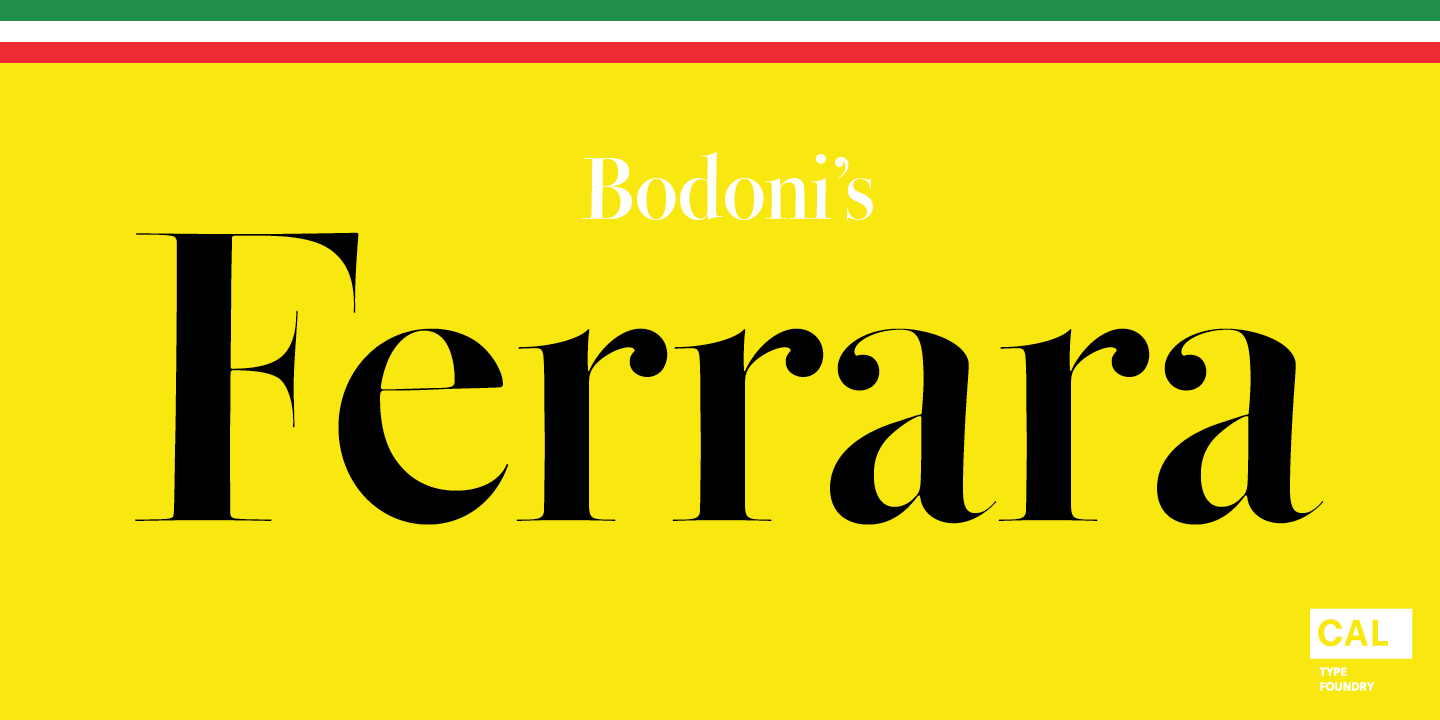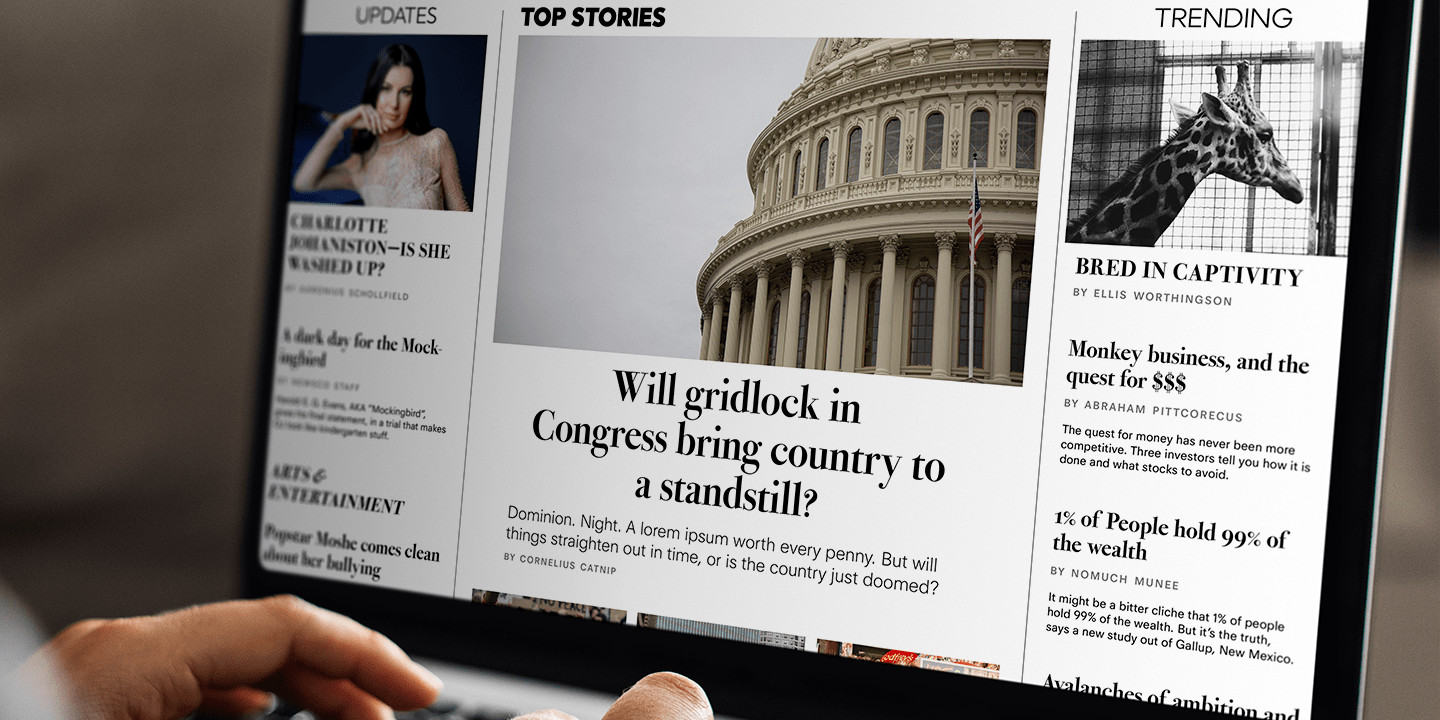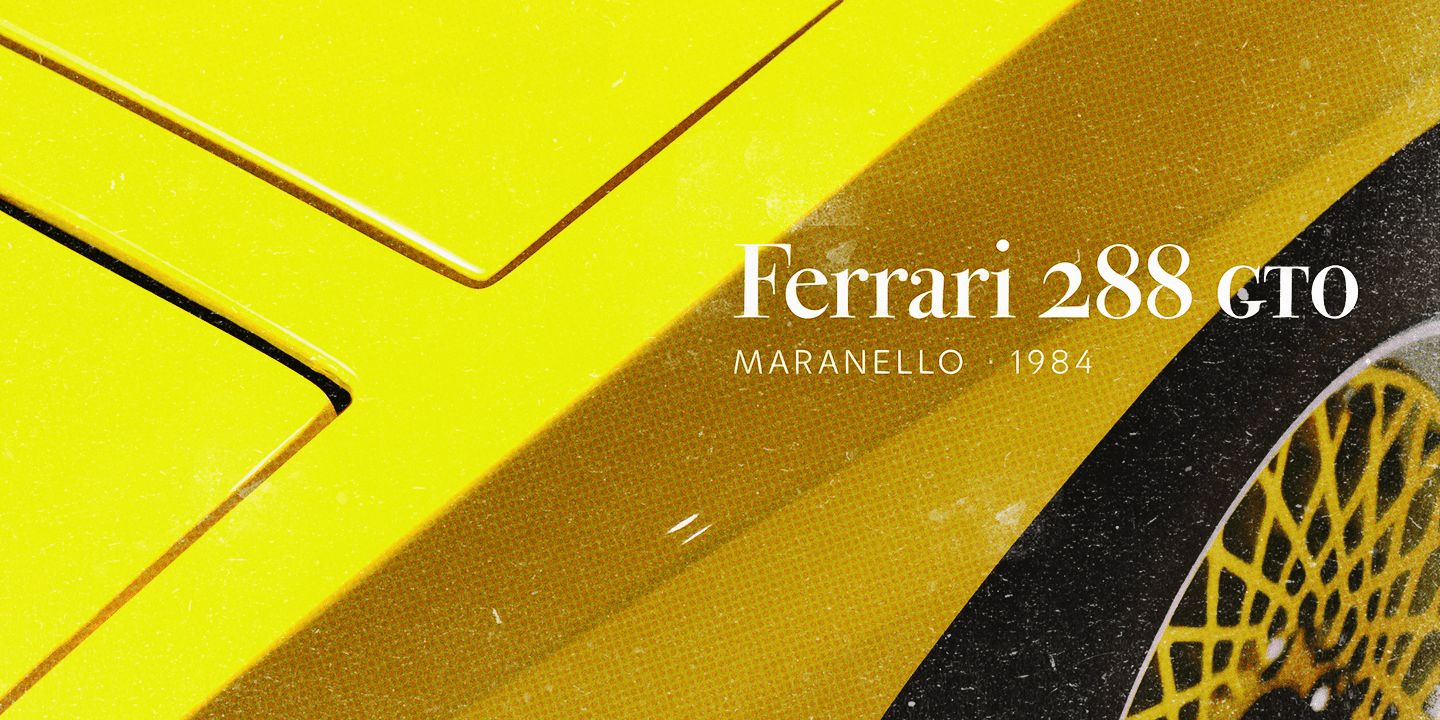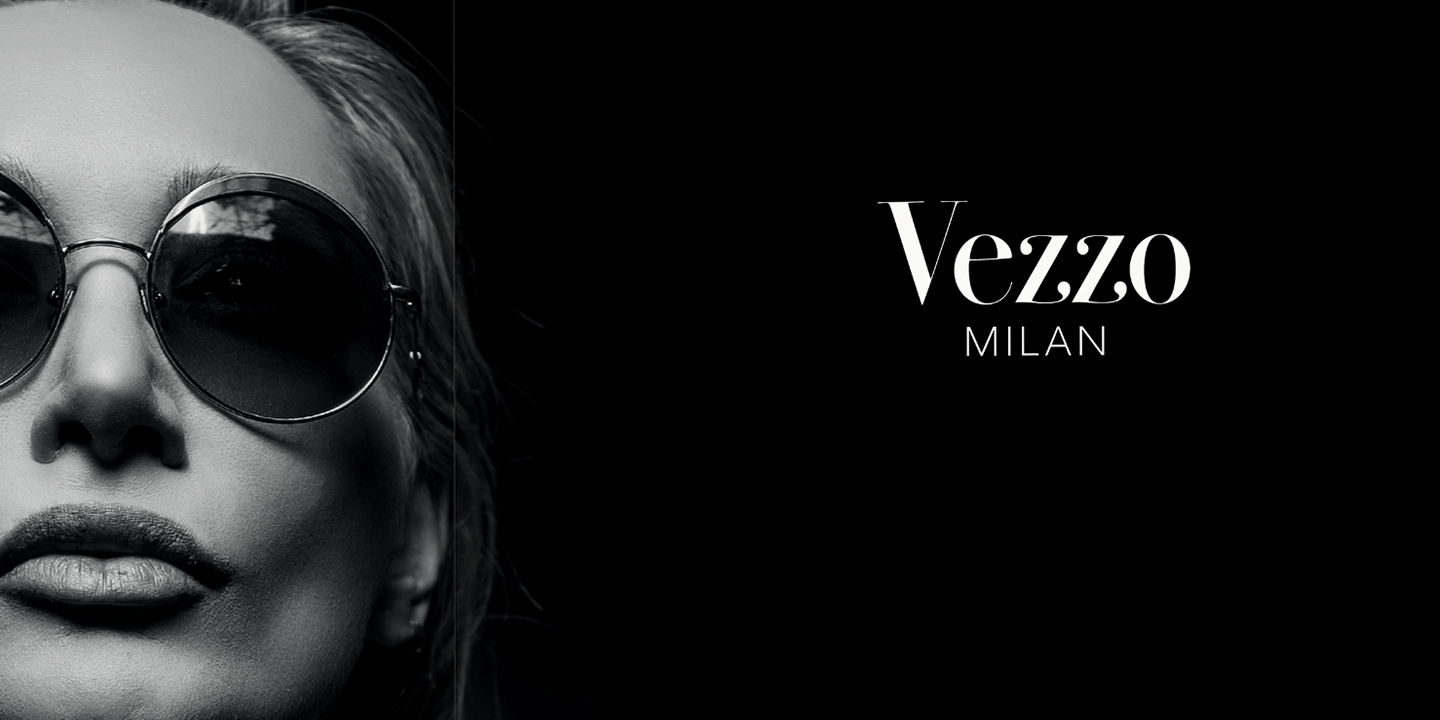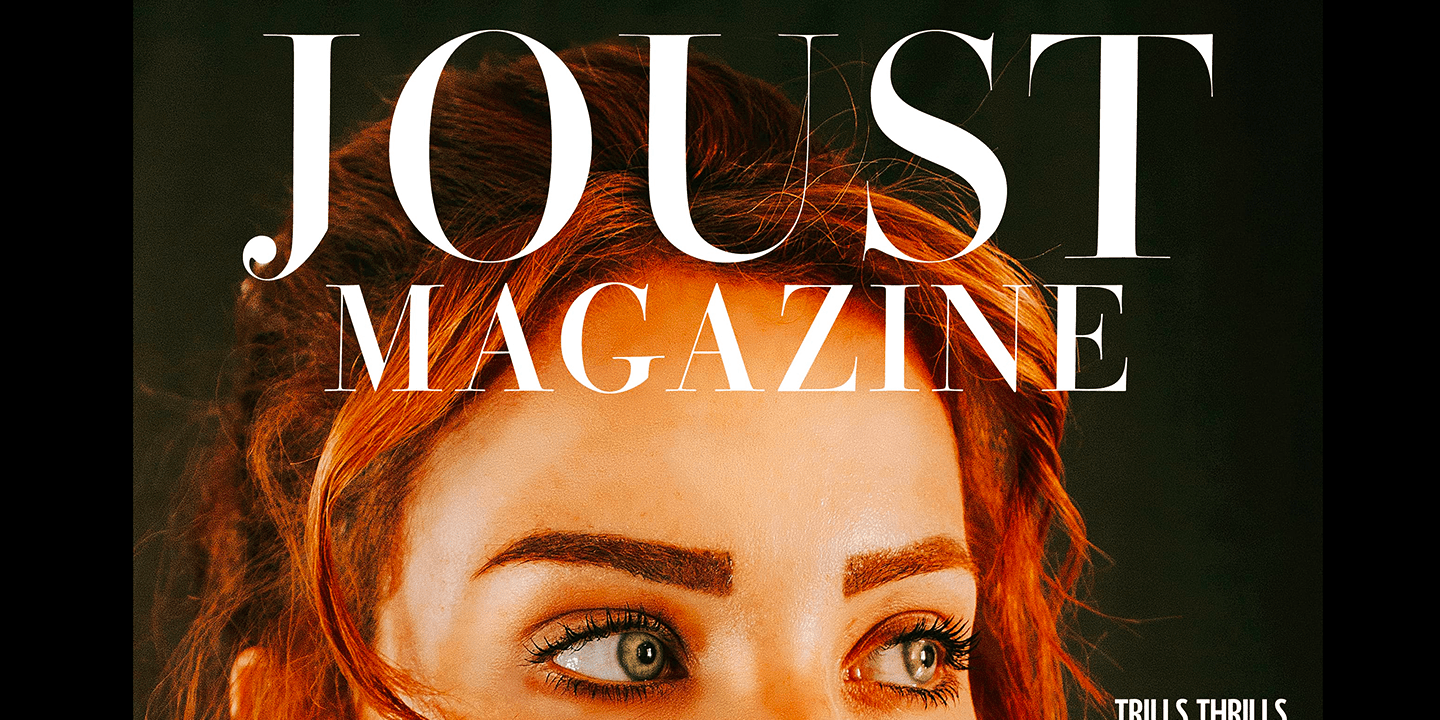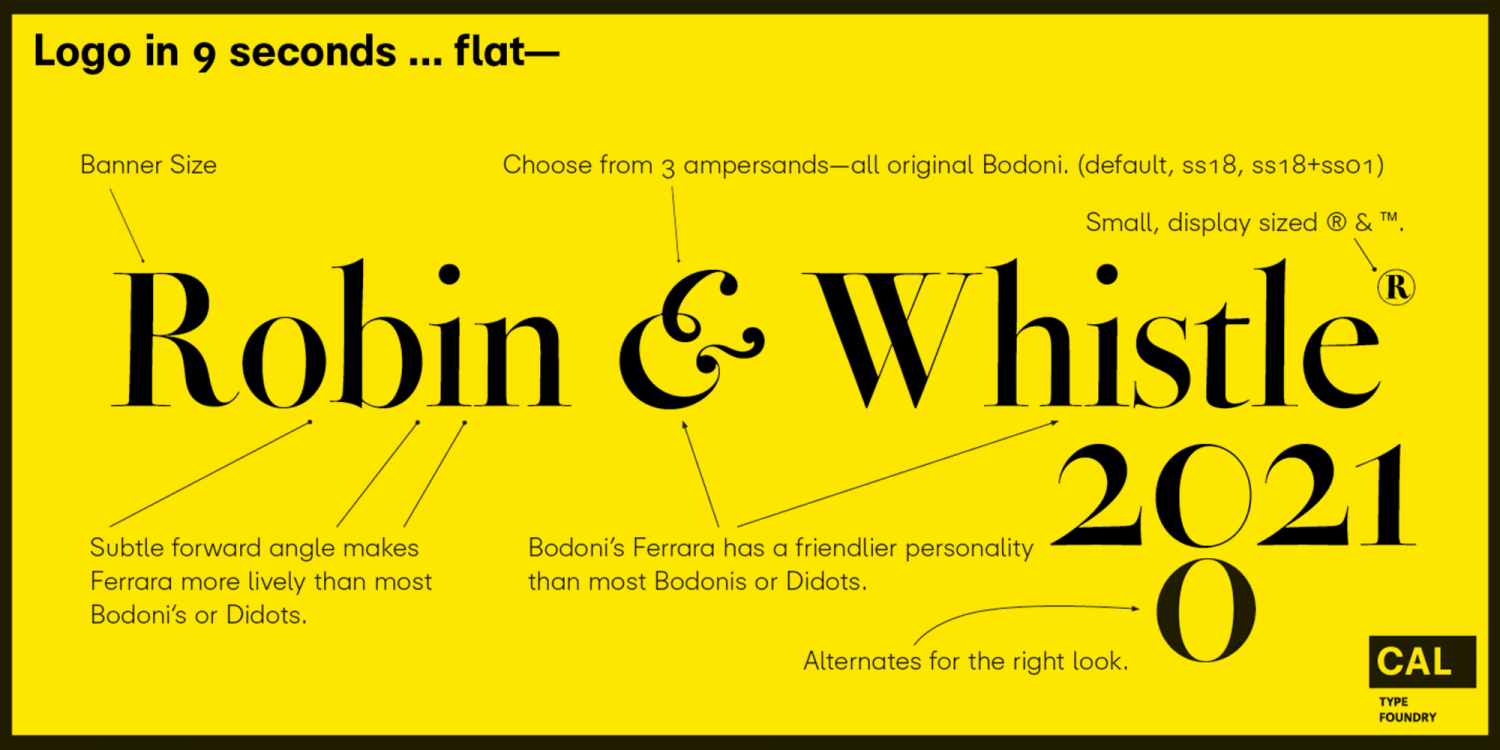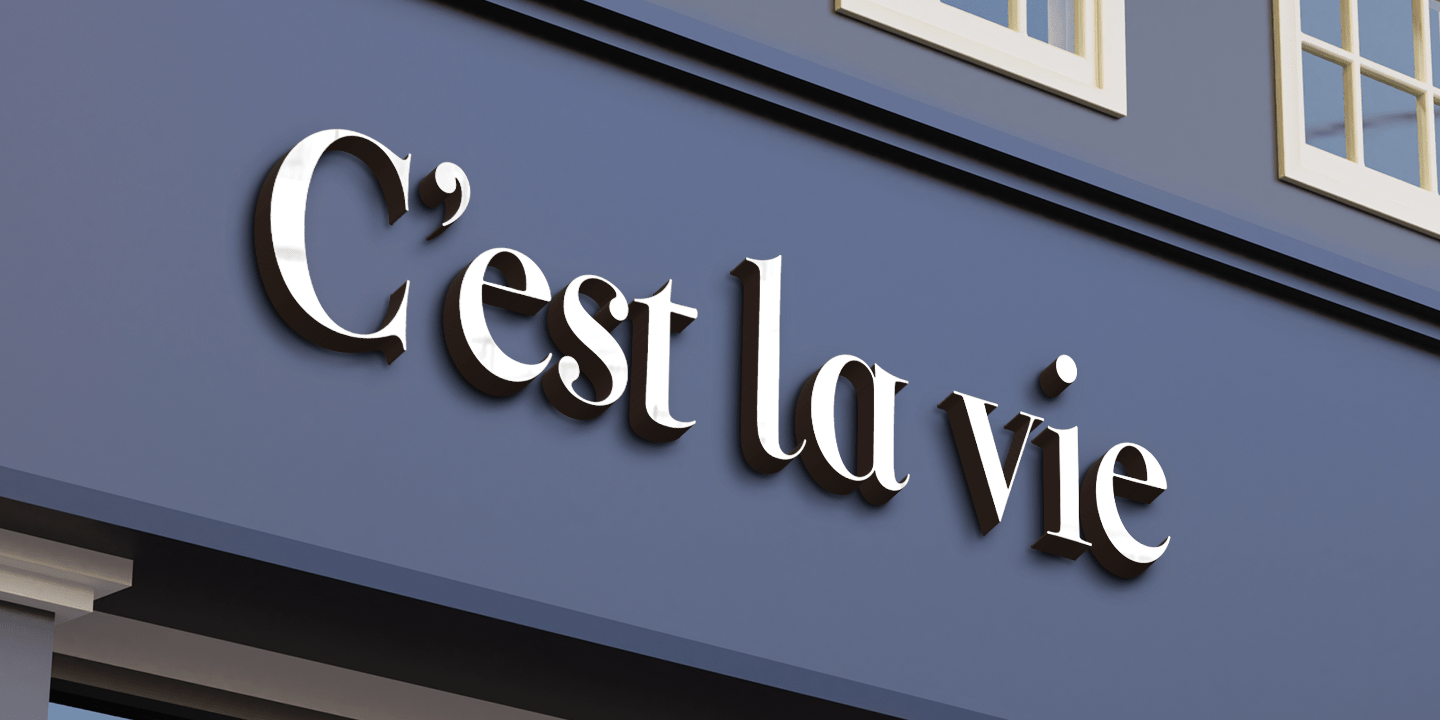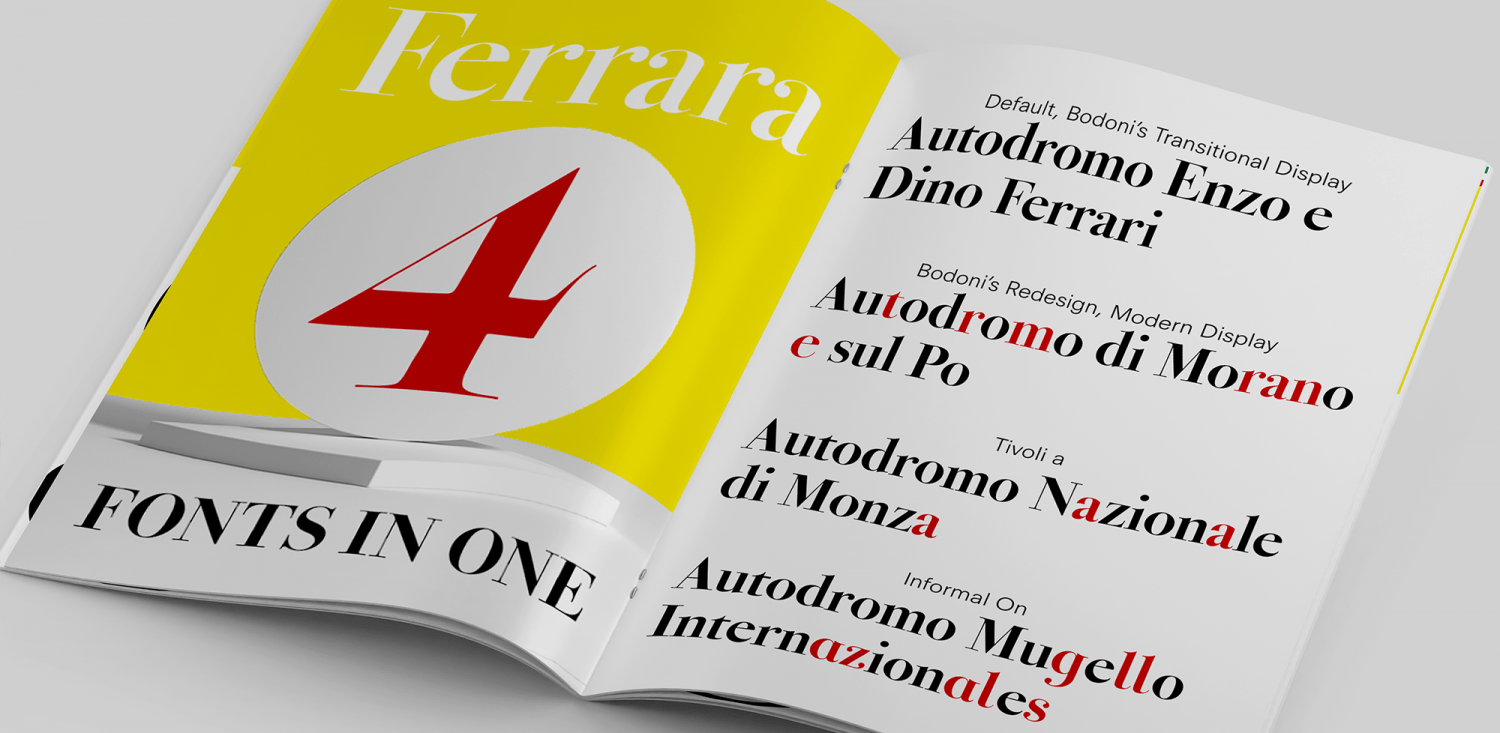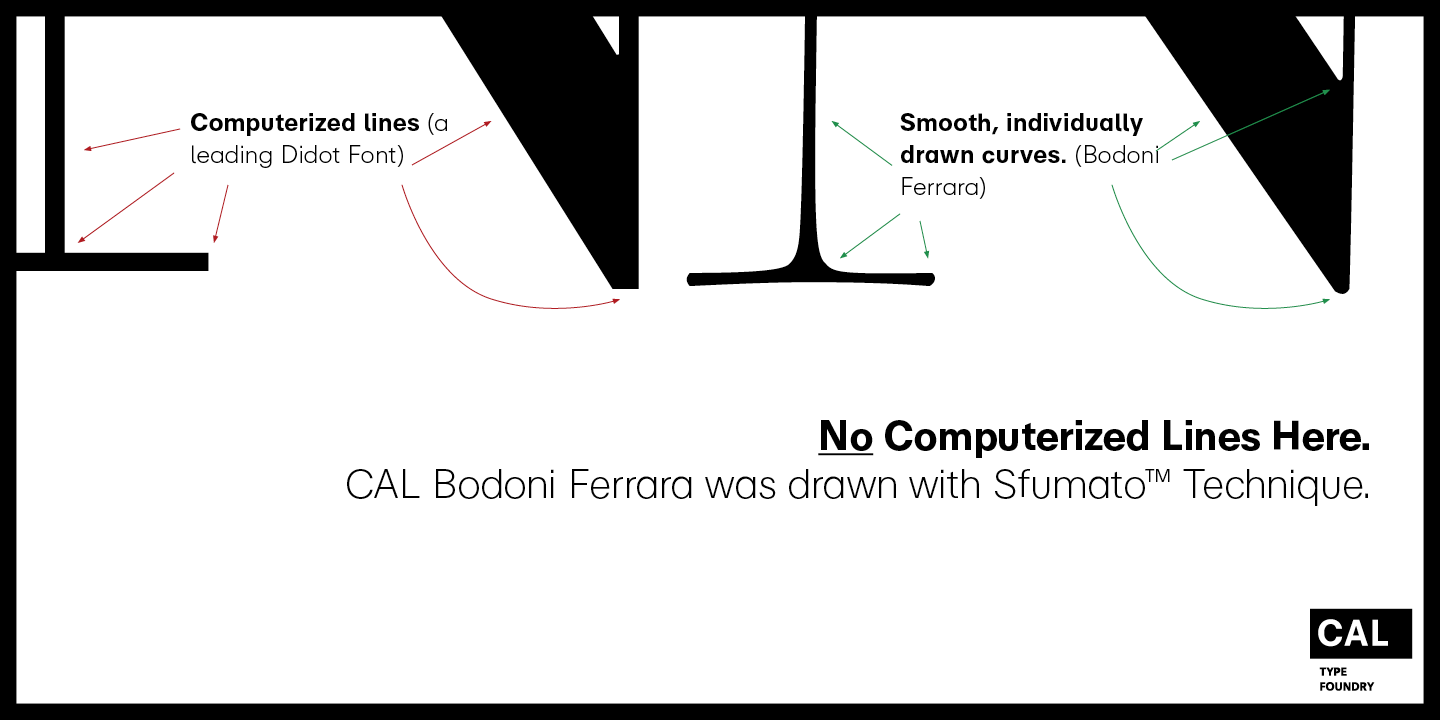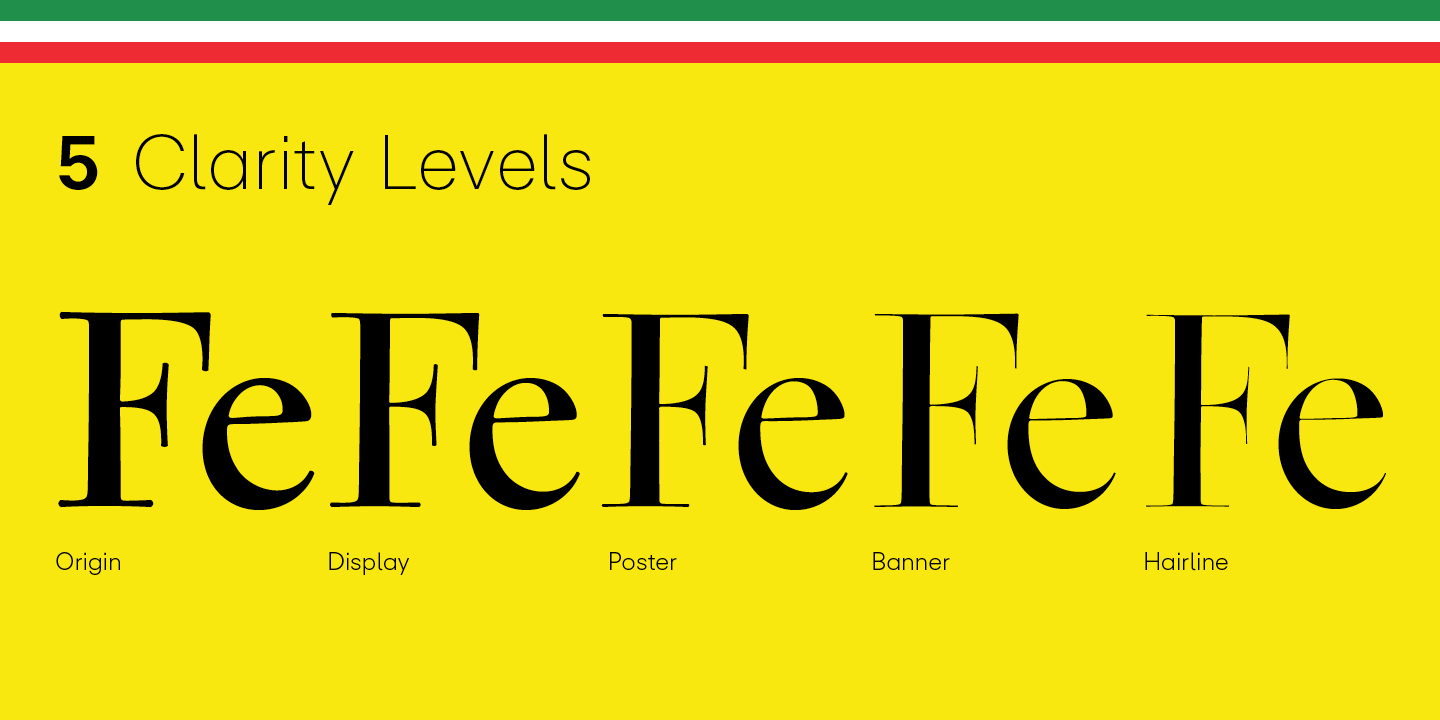
Bodoni Ferrara
Fashionable Heritage
Bodoni Ferrara includes both of the so-called ?Transitional? and ?Modern? style serifs?meaning it can pair with many types of serifs or sans. It also has an "Informal" mode with a single story 'a' and other letter forms for a friendlier feel. The range allowed with Ferrara, in size, style, mood and situations, means that this is the classic, fashionable font for display.
Design Features:
? Subtle forward angle makes Ferrara more lively and engaging than most Bodoni or Didot fonts.
? Round curves make this font feel letter-pressed?even in the hairline sizes.
? Bodoni's original tall x-height and slightly condensed proportions: great for headlines, where space is at a premium.
? Uppercase and lowercase punctuation.
? Oldstyle and lining figures, both modern style and transitional numbers. Every pair of numbers is kerned for display sizes: no unsightly gaps!
? Multiple special symbols for whenever you need a design to pop, including 3 different ampersands.
Language Features:
Multiple language support. Features, punctuation and diacritics have been designed specifically for languages they are used in, including German, French, Spanish, Portuguese, Italian, and French.